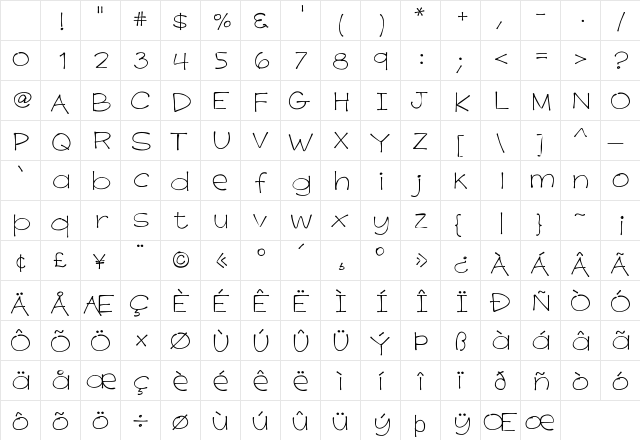
Complete K26PrimrosePeach Medium glyph index. Displaying only characters natively supported by K26PrimrosePeach Medium font.
K26PrimrosePeach is a composed and adaptable typeface that performs quietly and consistently across a wide range of design contexts.